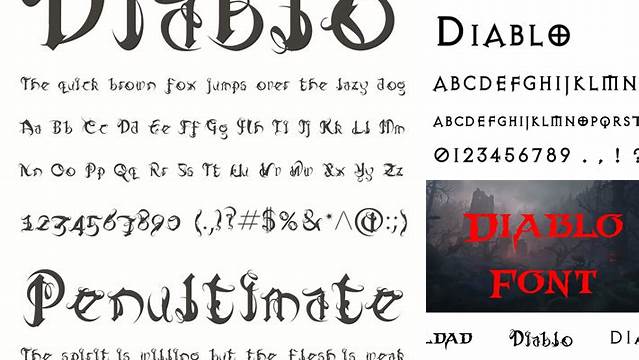
Hey guys! Ever been captivated by the gritty, hellish aesthetic of the Diablo games? That iconic look isn't just about the demons and dungeons; a huge part of it comes from the typography! Specifically, the Diablo font. If you're a designer, a gamer, or just someone who digs that dark, imposing style, you've probably wondered about getting your hands on the Diablo font for your own projects. Guess what? You're in luck! This guide is all about how to get the Diablo font for free, legally and easily. We'll dive into where to find it, how to install it, and even some cool ways to use it. Let's get started, shall we?
H2: The Allure of the Diablo Font: Why You Want It
Alright, before we jump into the download, let's talk about why the Diablo font is so darn appealing. It's more than just a font; it's an experience. It's the feeling of descending into the depths of hell, the anticipation of a boss fight, the thrill of finding that legendary loot. The Diablo font, with its sharp serifs and bold presence, perfectly embodies that feeling. It's a font that demands attention, whether you're using it for a game title, a poster, or even a personal project. The design of the Diablo font itself is a masterclass in creating a strong visual identity. The characters are meticulously crafted, giving it a distinct and recognizable personality. It's instantly associated with the Diablo franchise, and that recognition is powerful. For designers, using the Diablo font can instantly give your work a recognizable edge, especially if you're working on projects related to gaming, fantasy, or anything that benefits from a touch of darkness and intensity. The versatility of the Diablo font is also something to consider. While it's undeniably linked to the Diablo universe, it can be adapted for various uses. From website headers to social media graphics, the Diablo font can make your content stand out from the crowd. You can almost feel the weight of the game through the font. The sharp lines and bold strokes evoke that feeling of danger and intensity, making it a perfect choice for anything aiming to capture the attention of the audience. This kind of font is more than just about looks; it's about making the audience feel something. It's about creating an immersive experience. It is important to use a font that matches the content. That's why the Diablo font is a top choice. This font adds a very special touch to any project and you can be sure that your audience will be captivated.
H3: Decoding the Design: What Makes the Diablo Font Special
So, what exactly makes the Diablo font so special? Let's get into the nitty-gritty of its design. Firstly, it's not just one font, but often a variation of fonts used in the Diablo games. However, a common theme emerges: a strong, imposing, and slightly gothic aesthetic. The serifs, those little decorative strokes at the end of letterforms, are sharp and pronounced, giving the font a sense of strength and aggression. Think of them as tiny claws ready to strike. The letterforms themselves are often condensed, meaning they're narrower than standard fonts. This adds to the font's imposing nature, making the text feel packed and powerful. The Diablo font frequently uses a heavy weight, meaning the strokes are thick and bold. This ensures the text is easily readable, even at smaller sizes, and creates a visual impact that's hard to ignore. There is a certain level of visual consistency across all letters. The consistency is one of the reasons why the Diablo font works so well. The design of the Diablo font is a testament to the power of visual storytelling. It’s not just about how it looks, but how it makes you feel. That’s what makes it so special and why it’s become so iconic. Some fonts tell a story, while others are the story itself. The Diablo font fits this description. Also, the Diablo font is usually associated with darkness, chaos, and adventure. It's the perfect choice for anything aiming to capture the attention of the audience and leave a lasting impression. The font creates a unique blend of beauty and danger that's incredibly hard to resist. In a world filled with so many fonts, the Diablo font manages to stand out and be recognized.